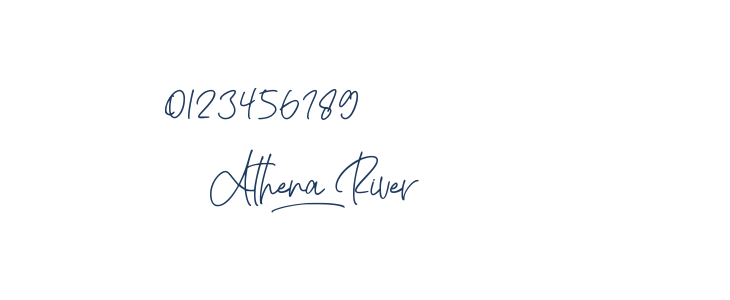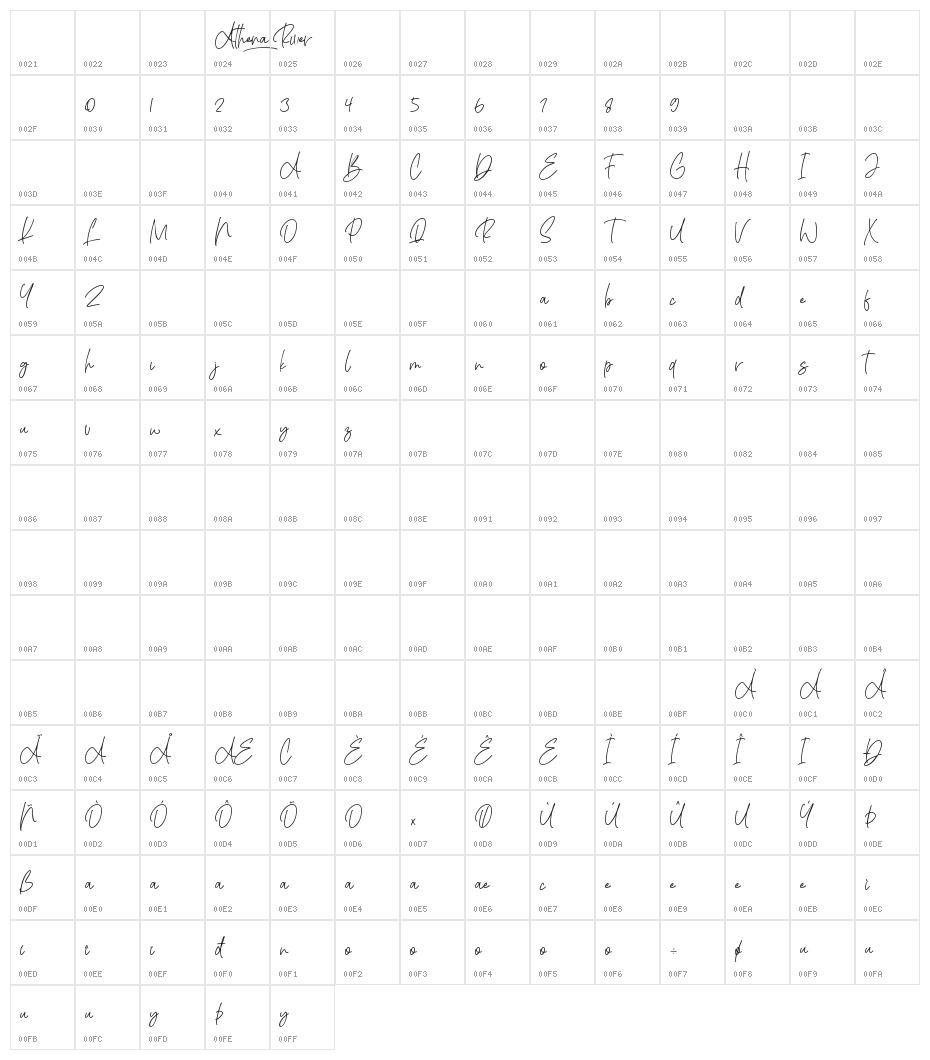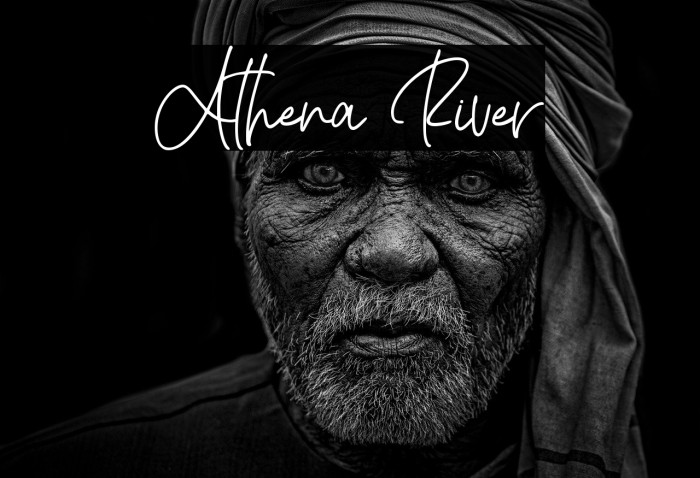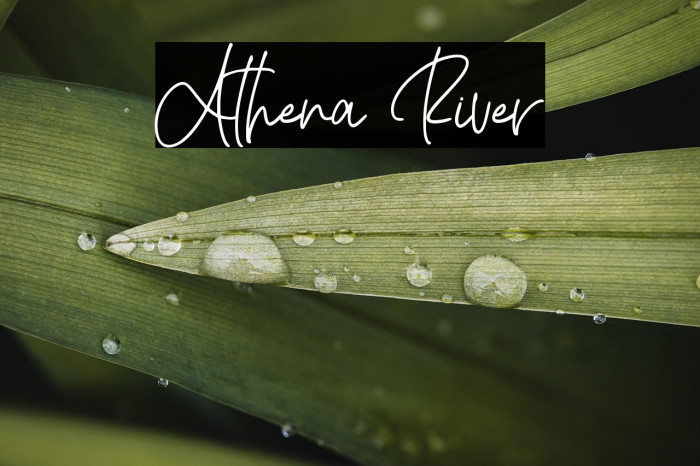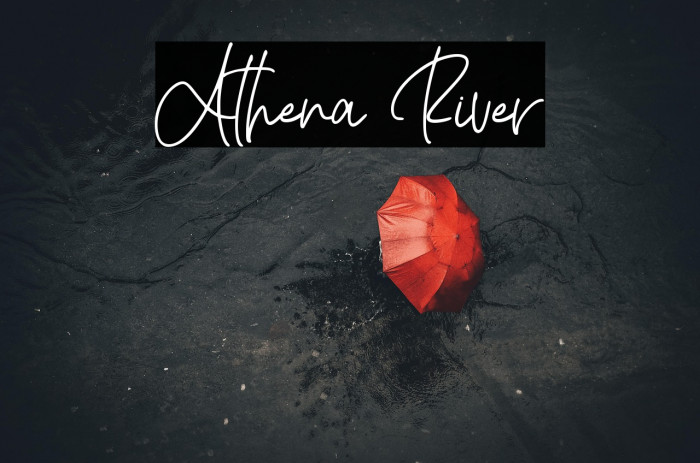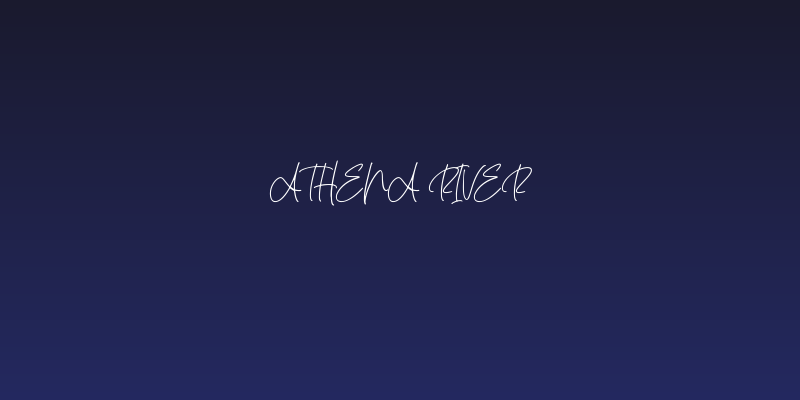
Athena River Font
Athena River Description
This font exudes a modern and elegant handwritten style, characterized by its fluid and cursive letterforms. The strokes are smooth and connected, giving it a natural and personal touch. The uppercase letters are bold and expressive, while the lowercase letters maintain a consistent flow, enhancing readability. The numerals and special characters are crafted with the same attention to detail, ensuring a cohesive look across all elements. This font is perfect for projects that require a personal and sophisticated touch, such as invitations, branding, and editorial design.
| Proposed Projects | Ideal for wedding invitations, personal branding, editorial design, and greeting cards. |